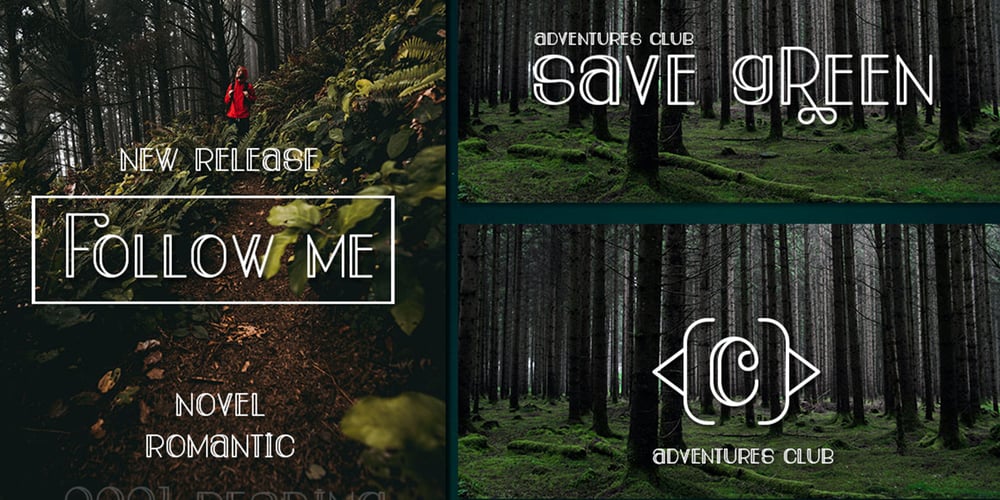
Bread Crackers Font Family was designed by Ibram Syah and published by Jehansyah. Bread Crackers contains 1 styles and family package options. Want a cute and unique look.”Bread Crackers” suitable for all your design work that wants to look unique and modern, and there are several alternatives that you can use in your design.